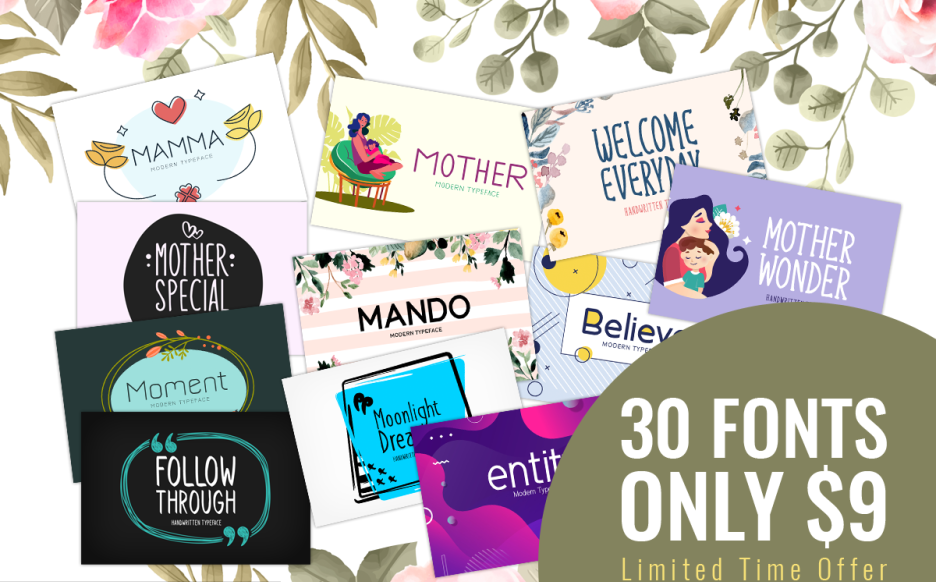
Font Eden – The Massive Font Bundle
Introducing Font Eden – The Massive Font Bundle, a comprehensive collection of premium fonts designed to elevate your creative projects. This bundle includes a diverse range of font styles, from elegant serifs to modern sans-serifs, ensuring you have the perfect typeface for any occasion.
• Variety of font styles: serif, sans-serif, script, and display
• Multiple weights and styles for each font
• Extensive character sets for multilingual support
• Over 50 unique fonts
• Weights: Light, Regular, Bold, and more
• Ideal for branding, logos, web design, and print materials
• Utilize different weights for emphasis and hierarchy in your designs